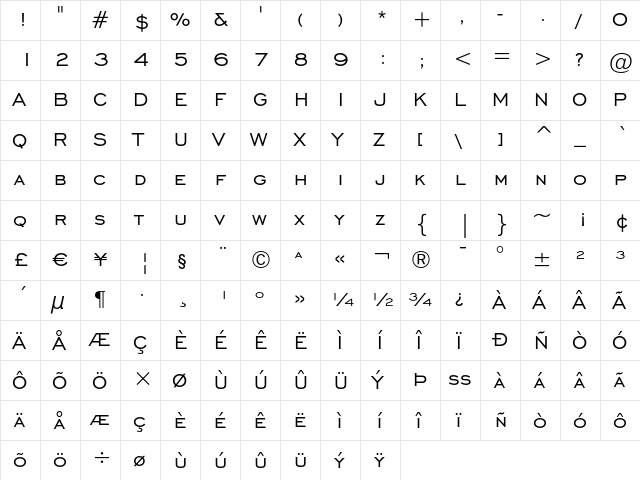
Engravers' Gothic Regular Font Preview
Engravers' Gothic Regular
Design Context for Engravers' Gothic Typeface
Engravers' Gothic has the quiet confidence of well-executed sans-serif typography: versatile, unobtrusive, and dependable at any size.
Font Pairing: Works well alongside a characterful serif or display font that can carry the expressive load while Engravers' Gothic handles the functional copy.
Pro Tip: Use Engravers' Gothic for UI labels, navigation, and short-form body copy where clean legibility is the priority.